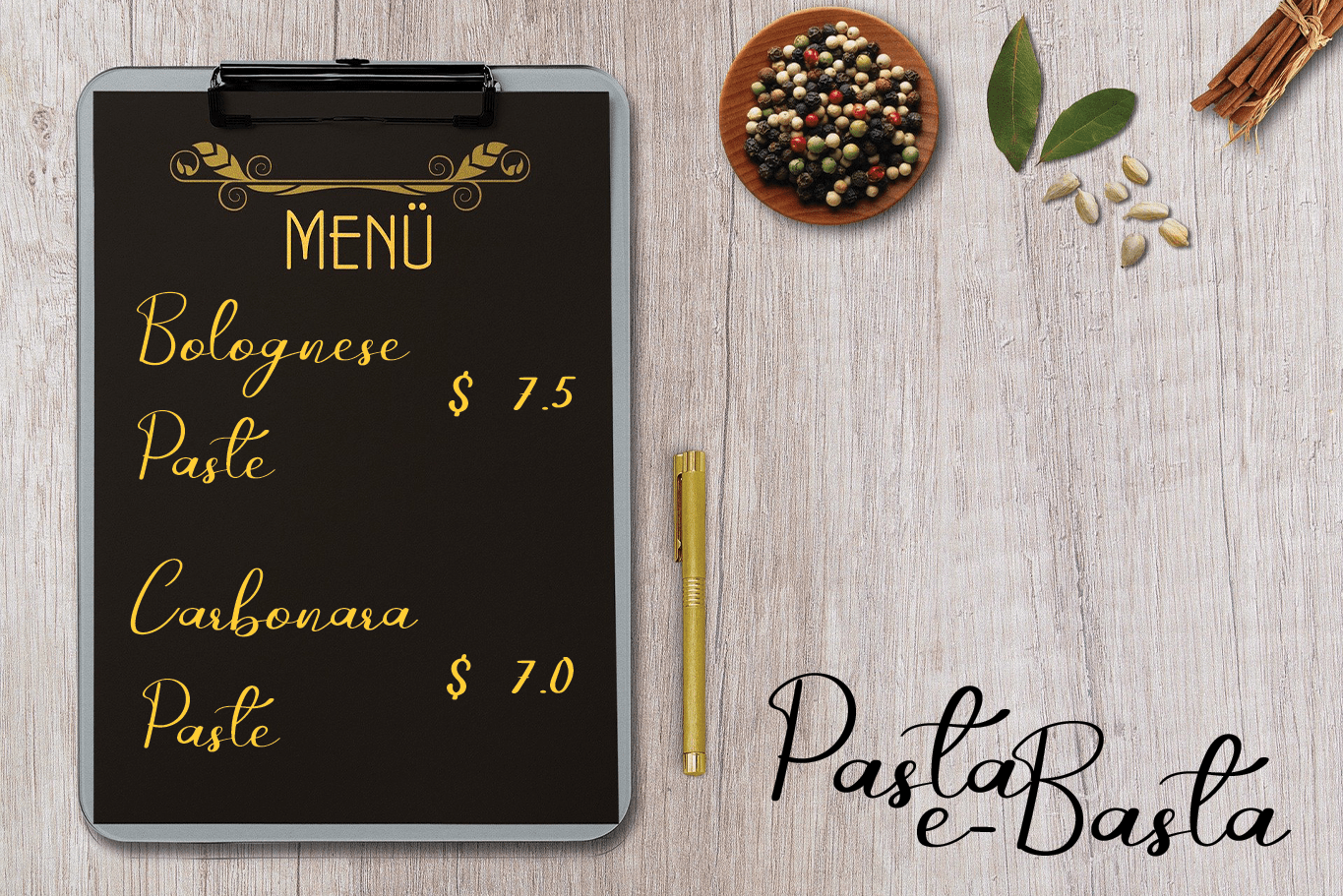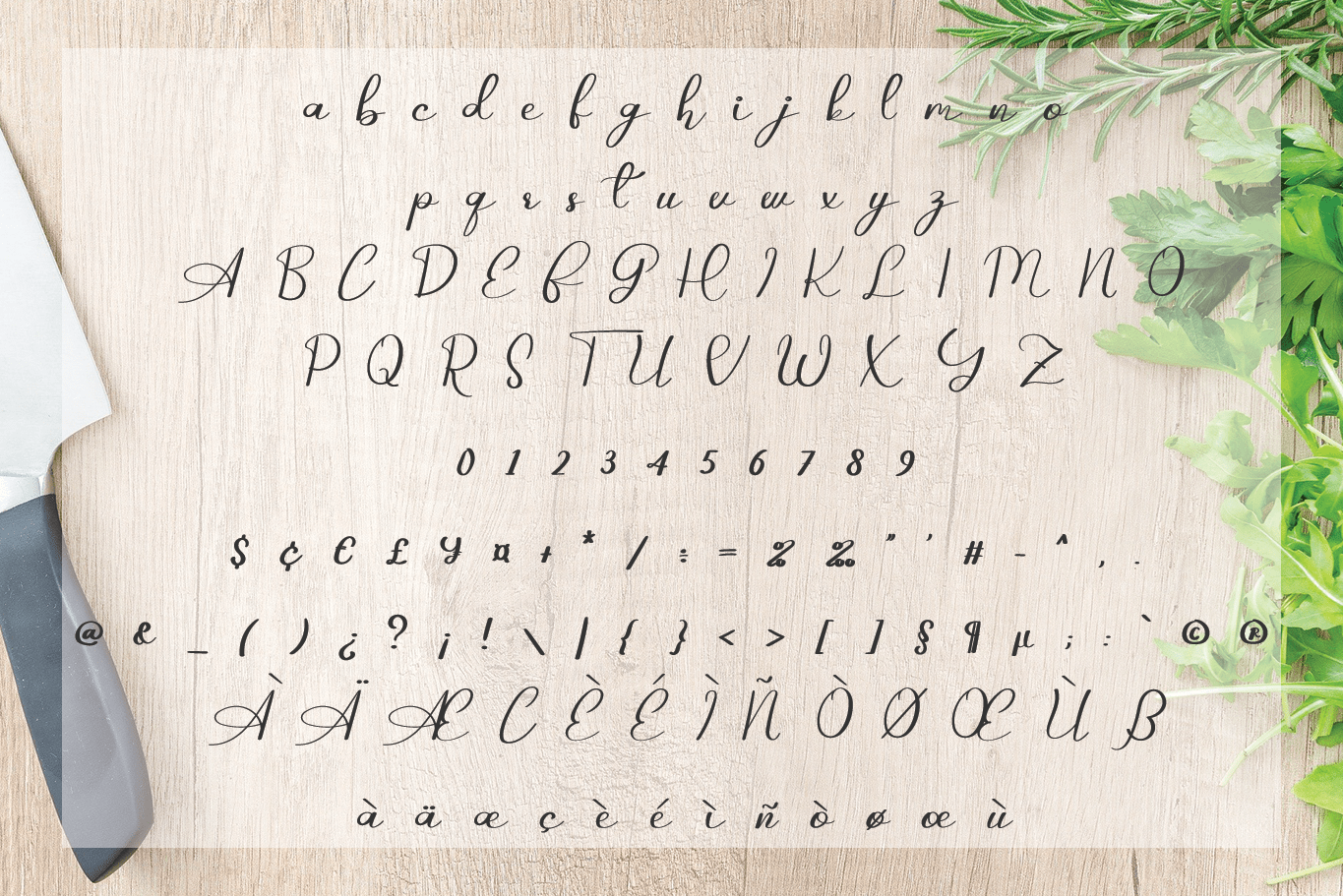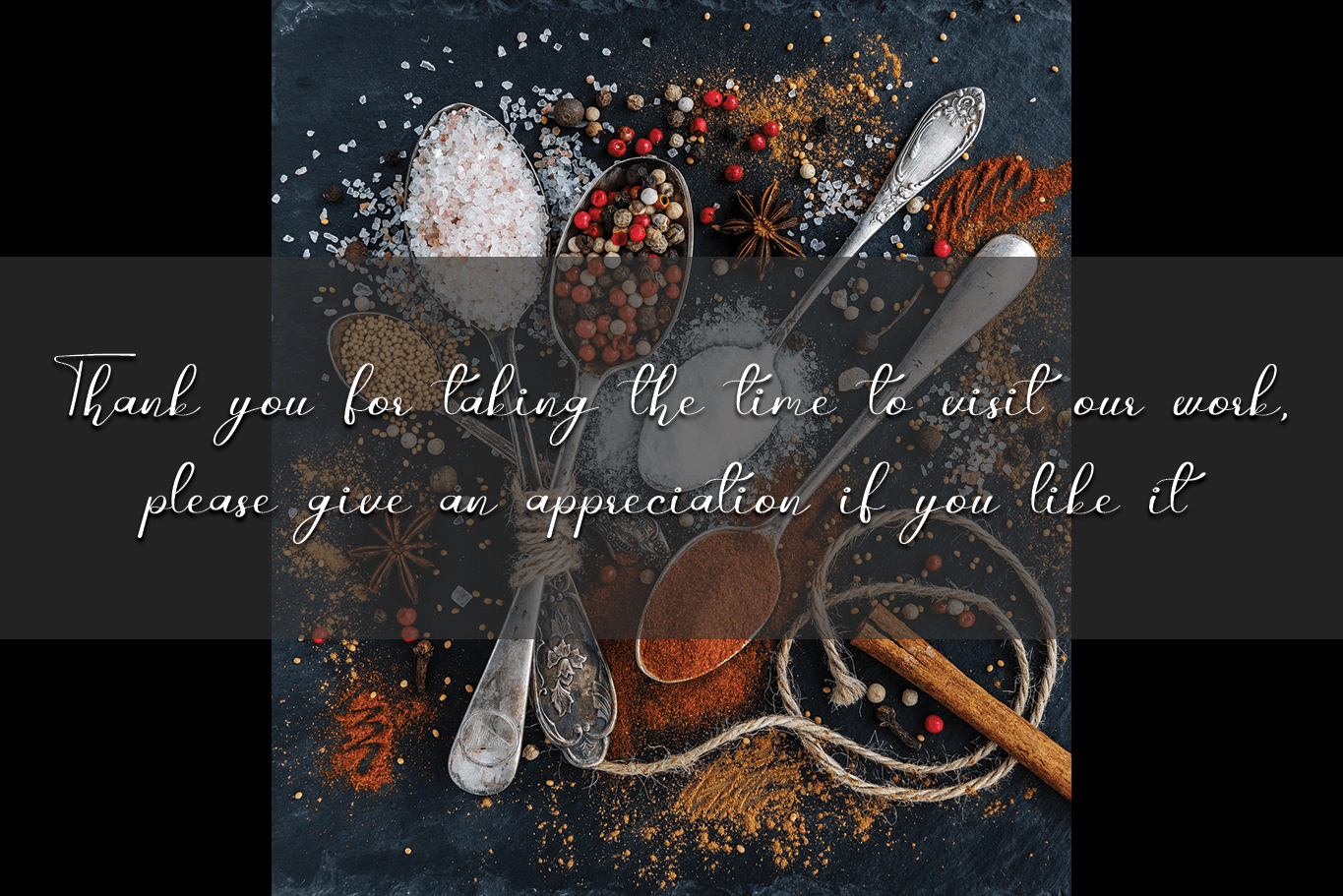
Ajinomote Font
Ajinomote Script Font
This is a neat and pretty handwritten font. It has nicely curved letters and a cursive flow that can enhance the look of any creation!